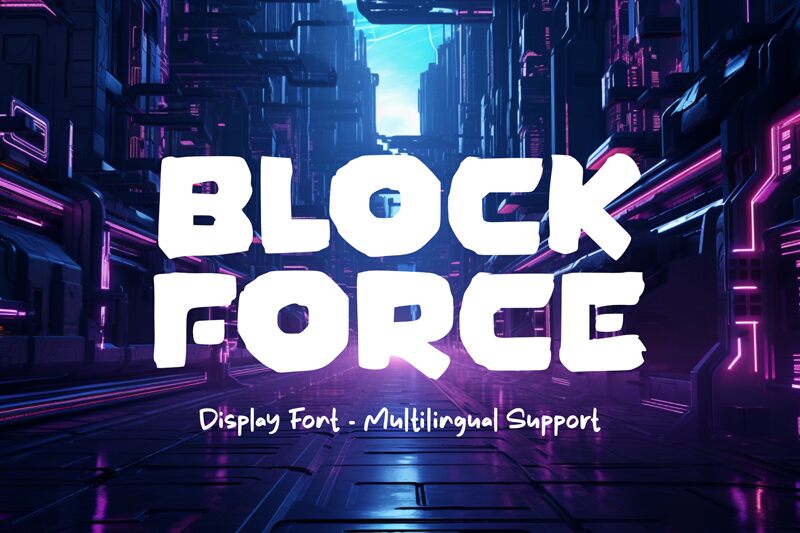
Block Force
Block Force font by DumadiStyle is an eroded display typeface that grabs attention with a powerful aesthetic. It features retro vibes, minimalistic details, and a bold presence that will have a modern impact on every viewer. With an expanded width and an overall bold letter construction, its breath of freshness won’t pass unnoticed.
This free display font gets noticed in poster design, flyer design, advertising projects, social media posts & covers. Furthermore, it’s great for packaging projects like food packaging whose products are often placed on shelves along with dozens of other food items as well as book covers and branding projects in general.